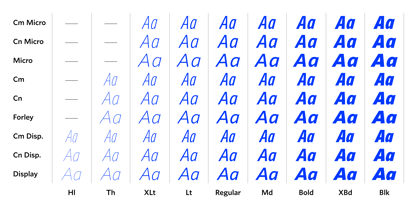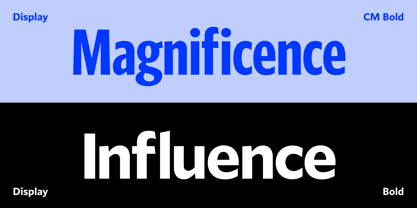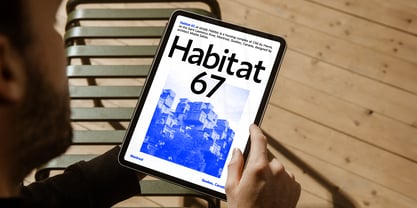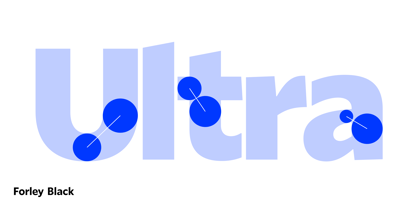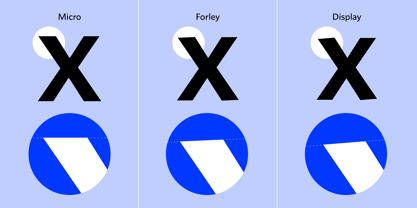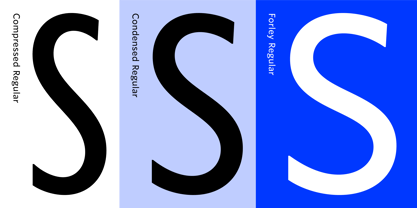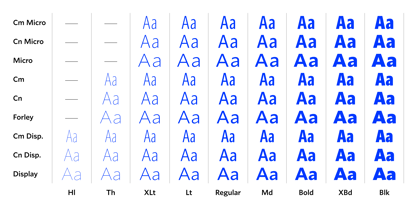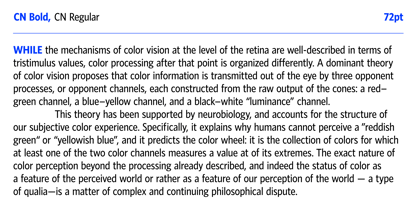
Forley™ Variable
The Forley Variable Font Family was designed by Jörg Hemker, Terrance Weinzierl, Monotype Design Studio and published by Monotype. Forley Variable contains 2 styles and family package options. More about this family
Reading is seeing – and seeing is understanding. Forley redefines legibility with precision craftsmanship and a balanced optical axis. Its consistent rhythm and clarity adapt seamlessly from striking headlines to comfortable body text, enhancing readability and style across all sizes.